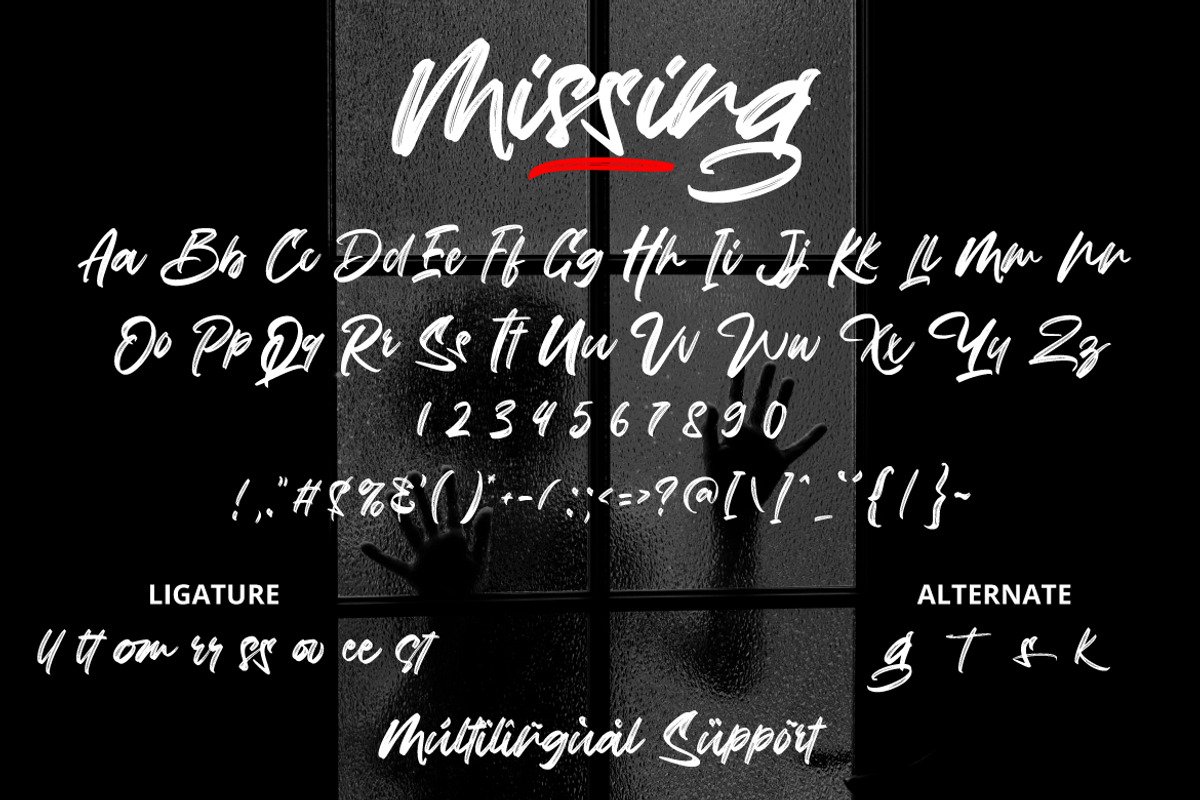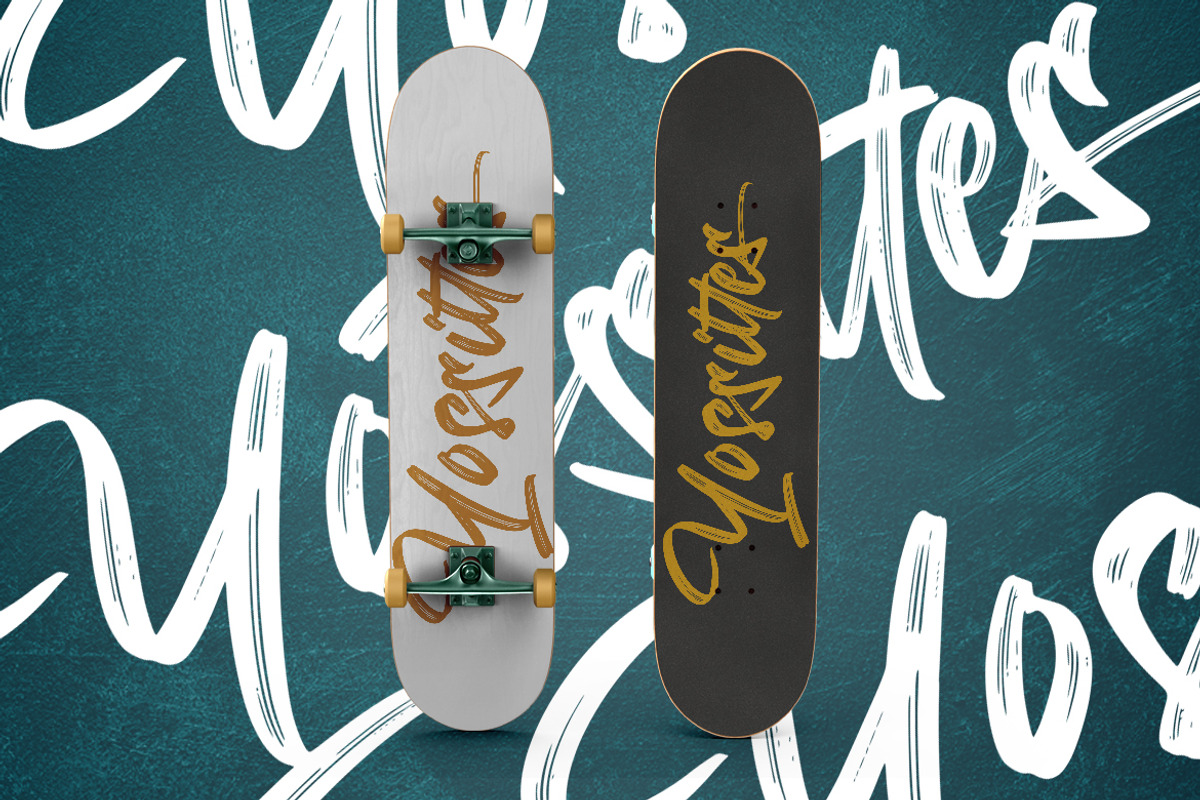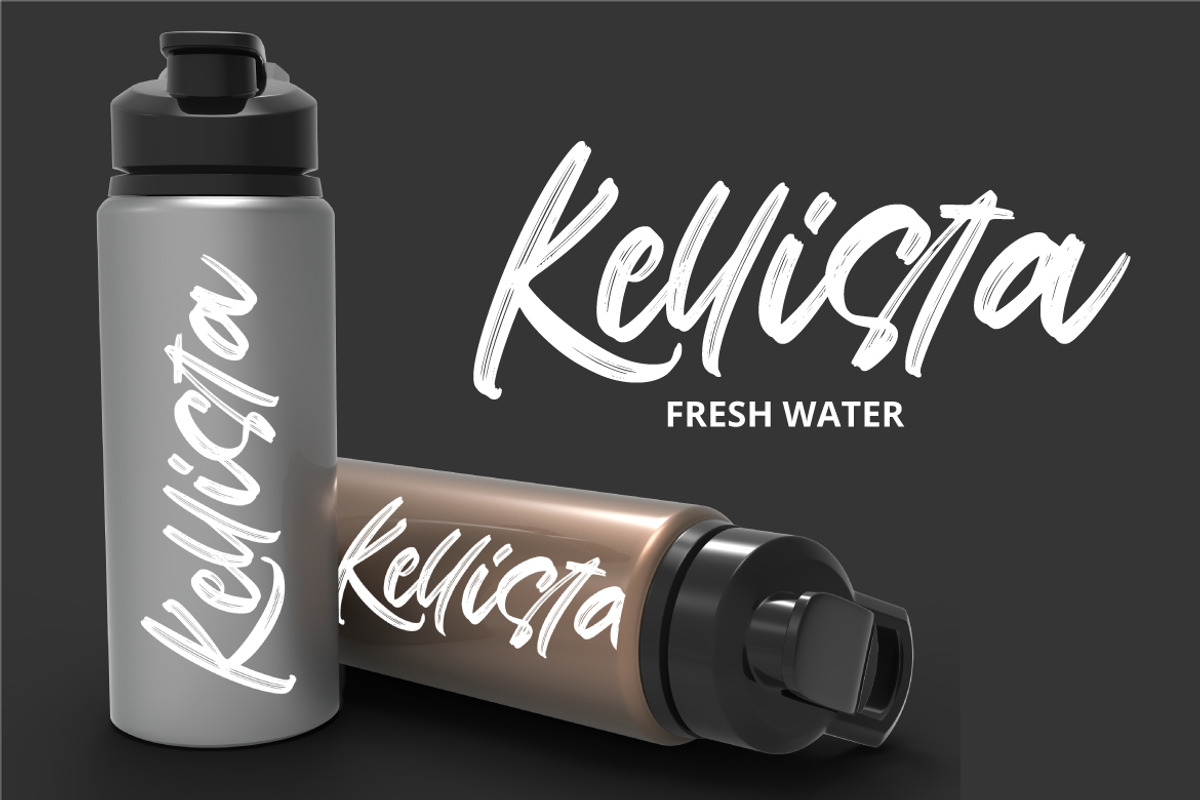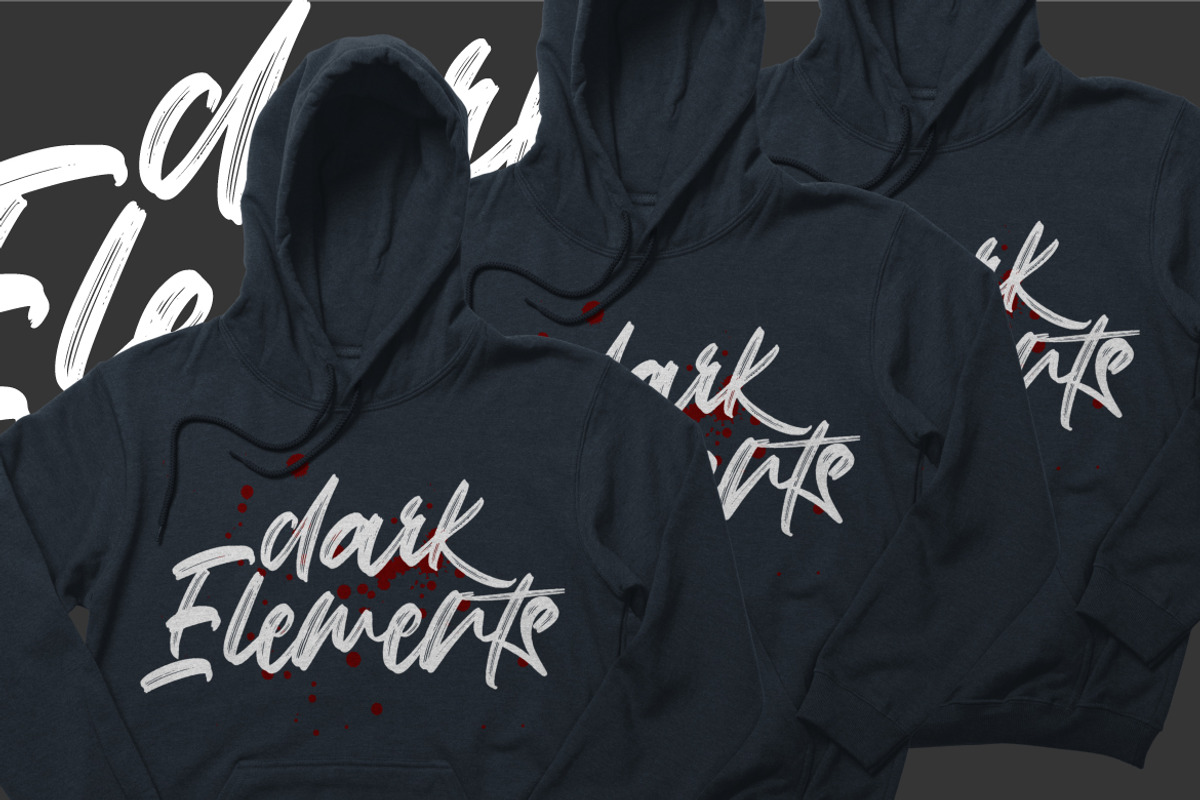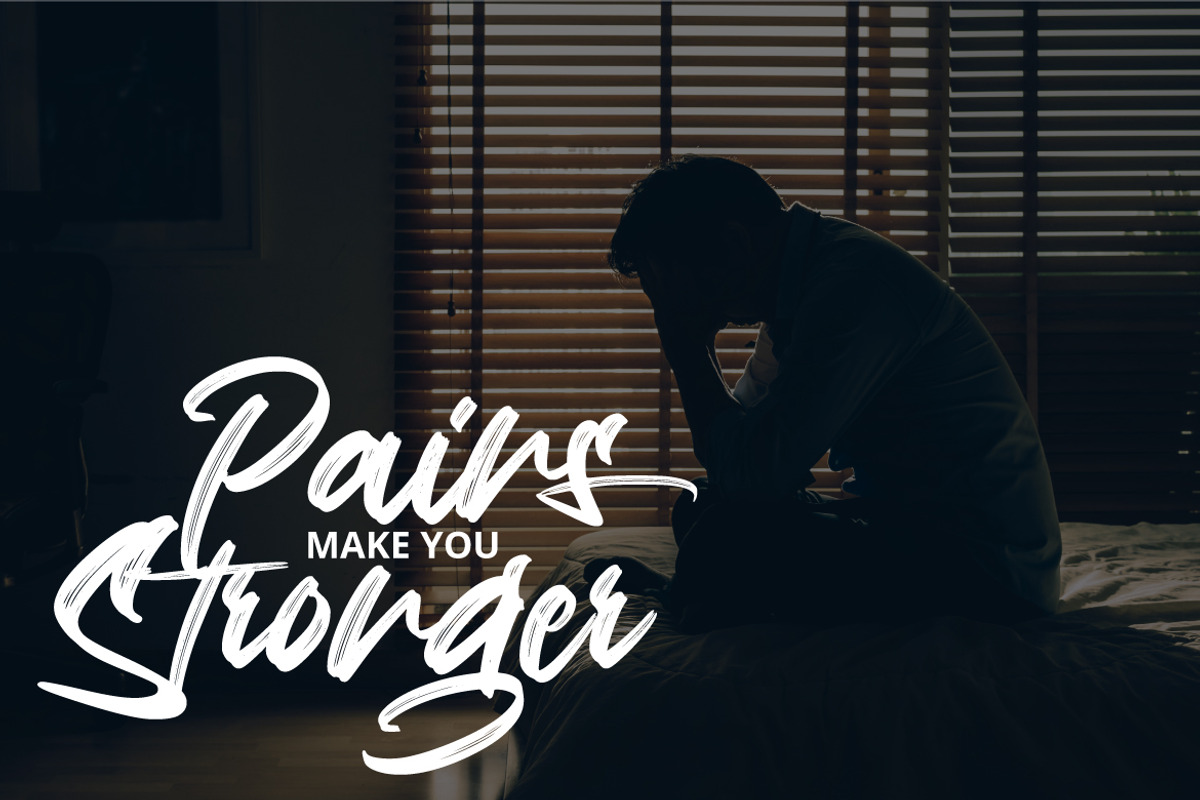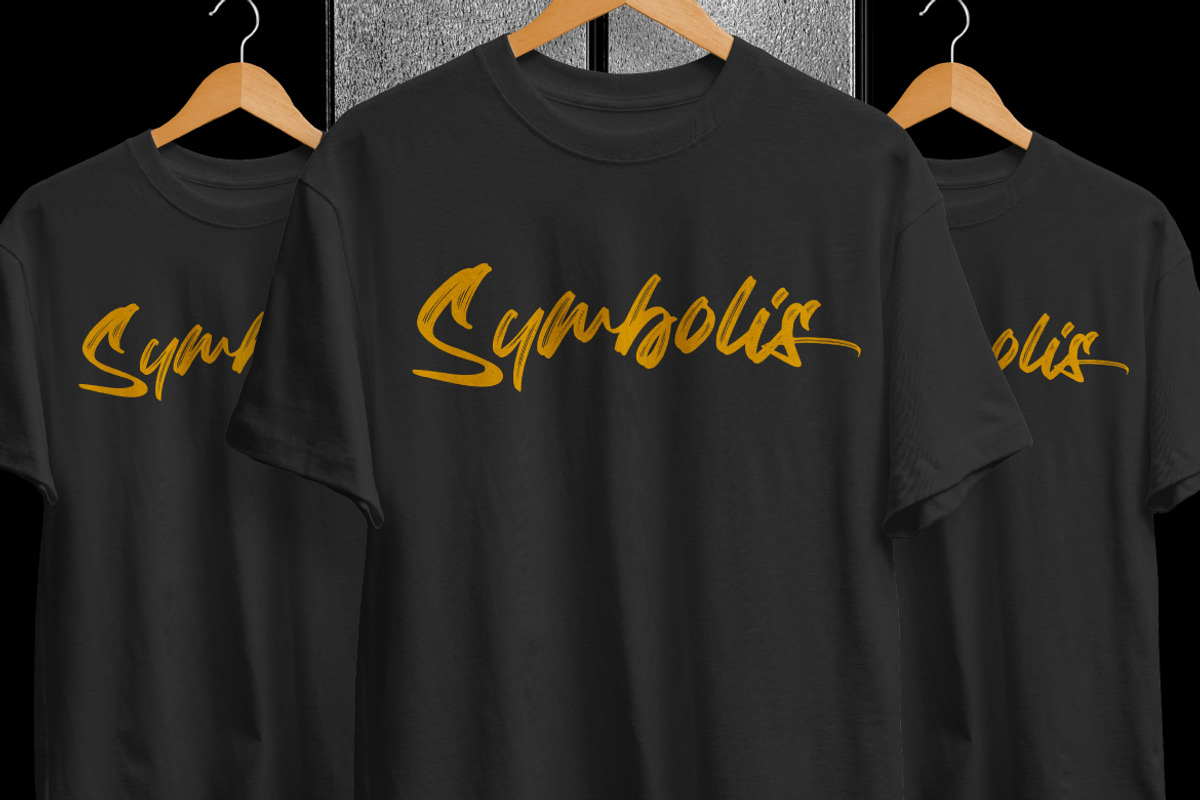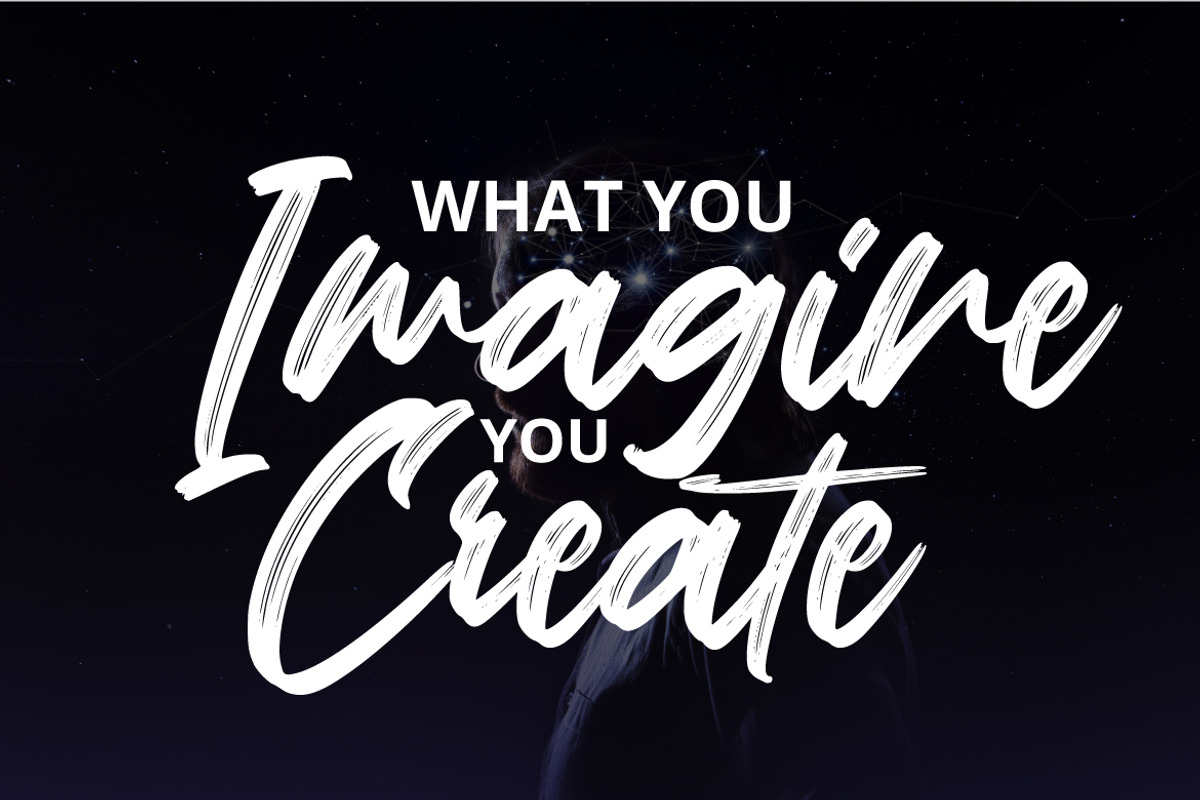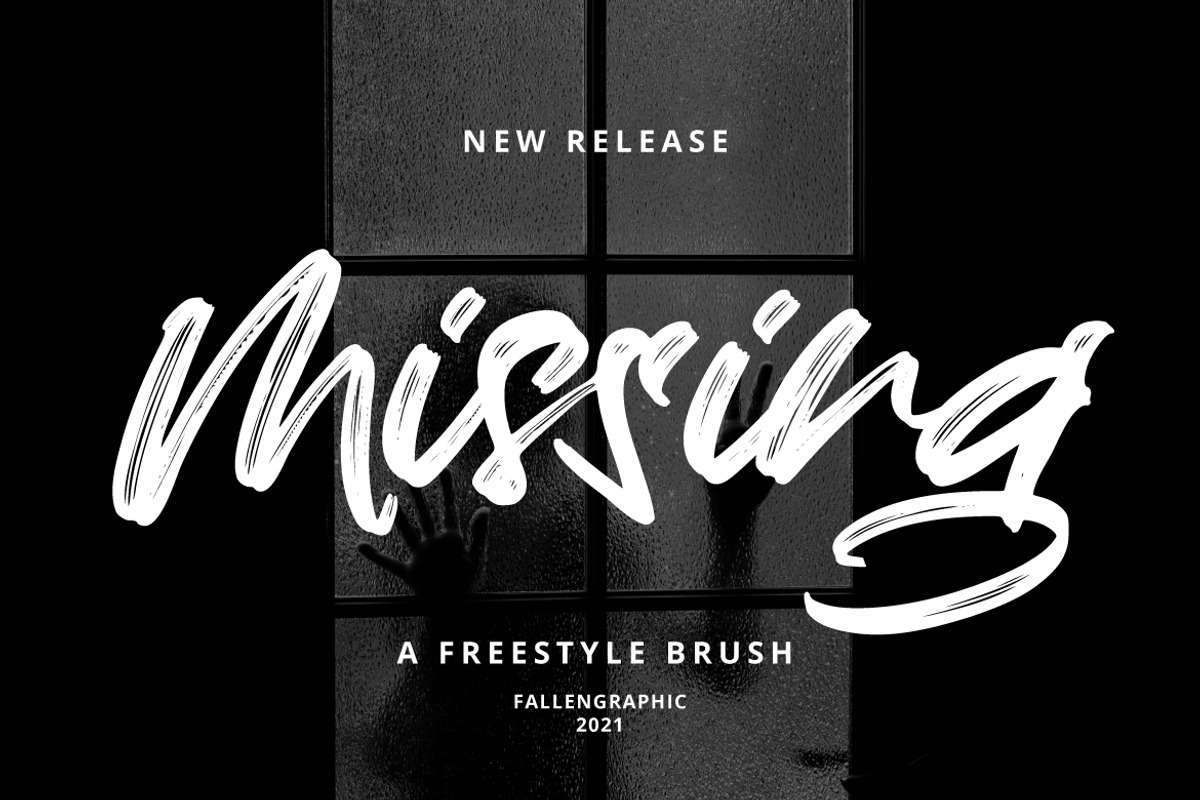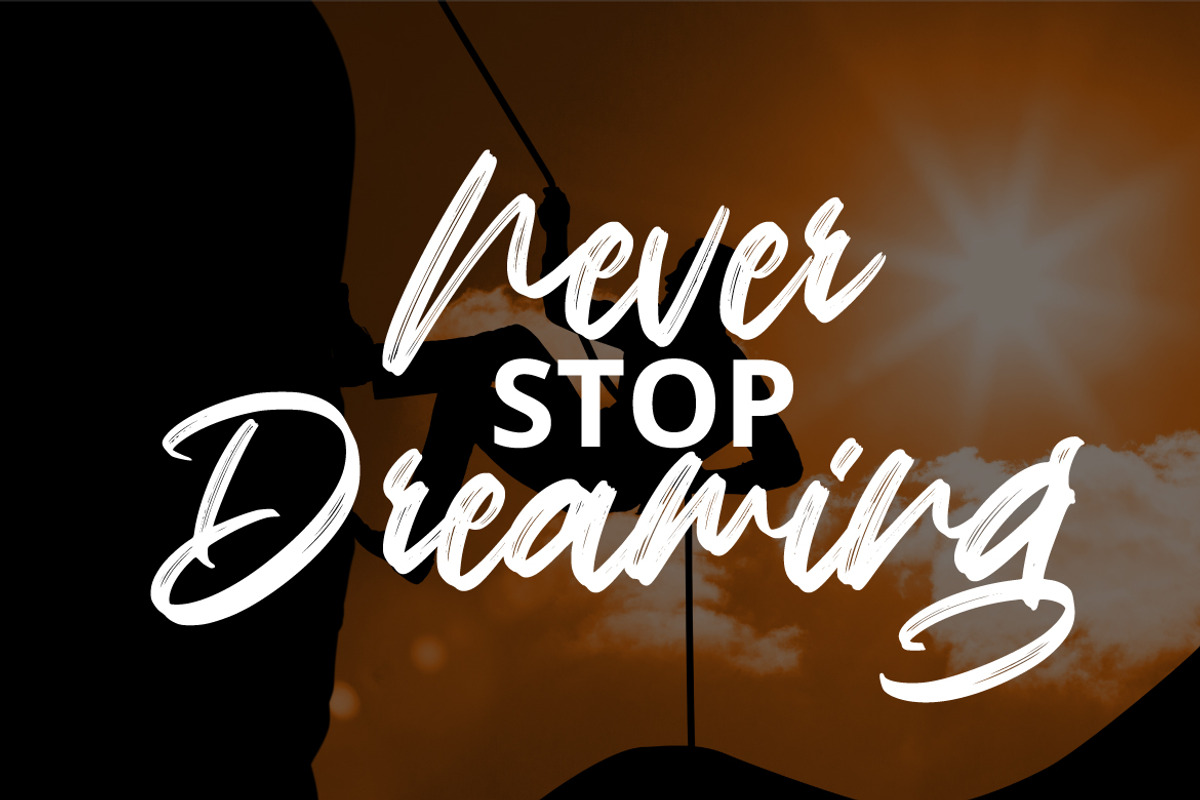
Missing - a Freestyle Brush Font
Missing is an amazing handwritten brush font . Made with naturally handwritten. The font will make your design more beautiful and powerful. This font is suitable for any design like branding, quotes and etc. I hope you enjoy it !! Thanks for visiting and downloading my font!what’s inside :
- Numerals and Punctuations (OpenType Standard)
- Many of alternates